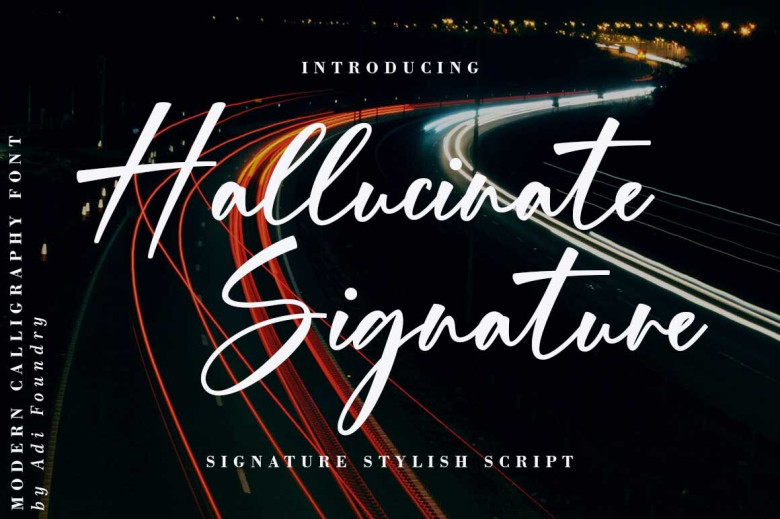
Hallucinate Signature Font
Hallucinate signature is a handwritten font that gives that special signature feels to any project. It is fit for such purposes as Branding, Logo Design, Lettering, Logotype, Clothing, Posters, magazine, packaging, posters, shopping bags, t-shirt, book covers, photography, special event and other design project that calls for a unique personality within a single layout.